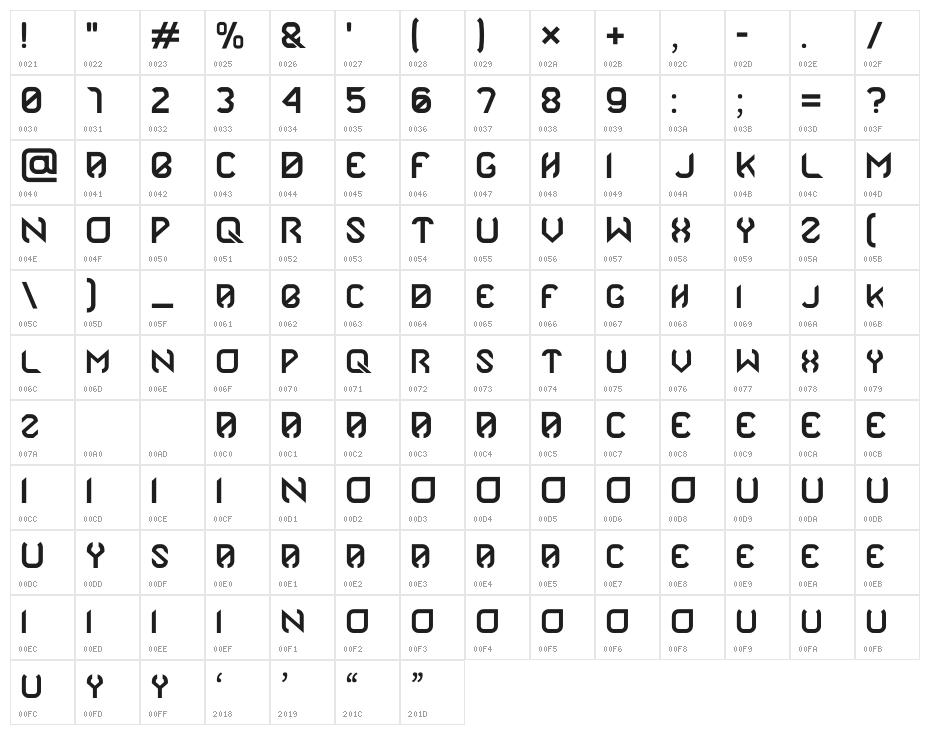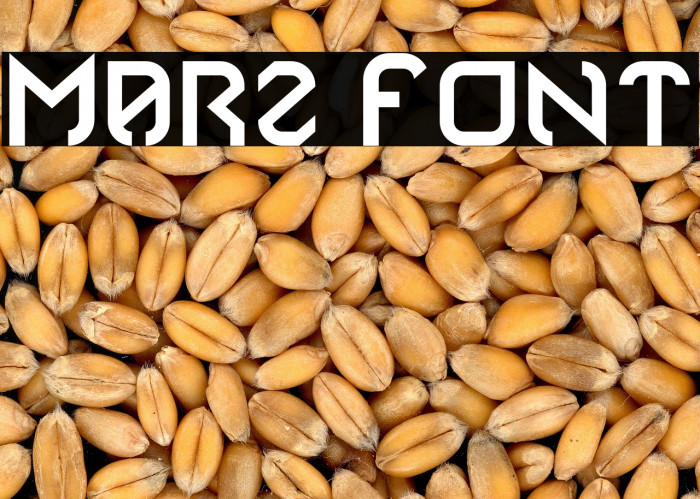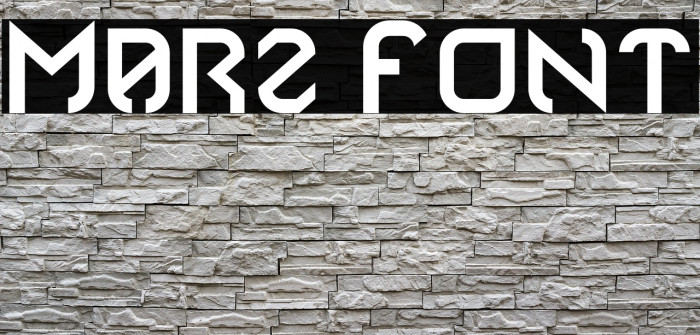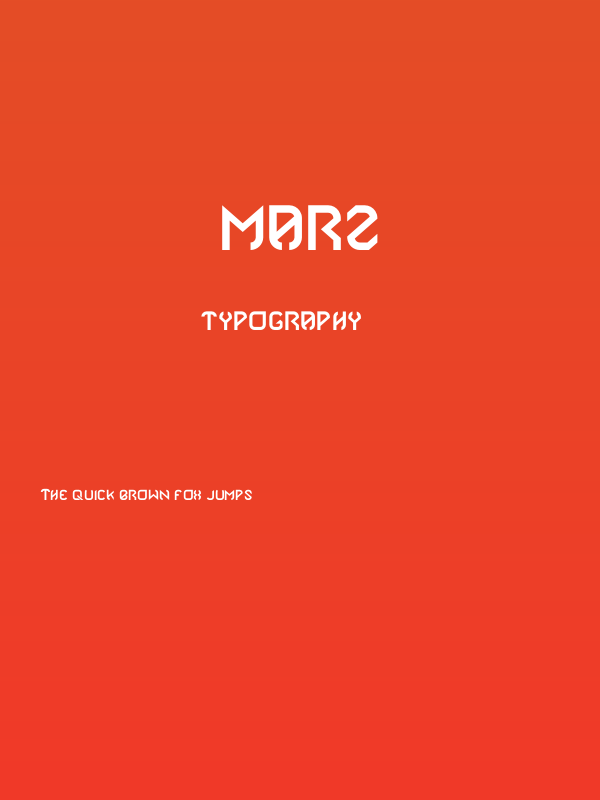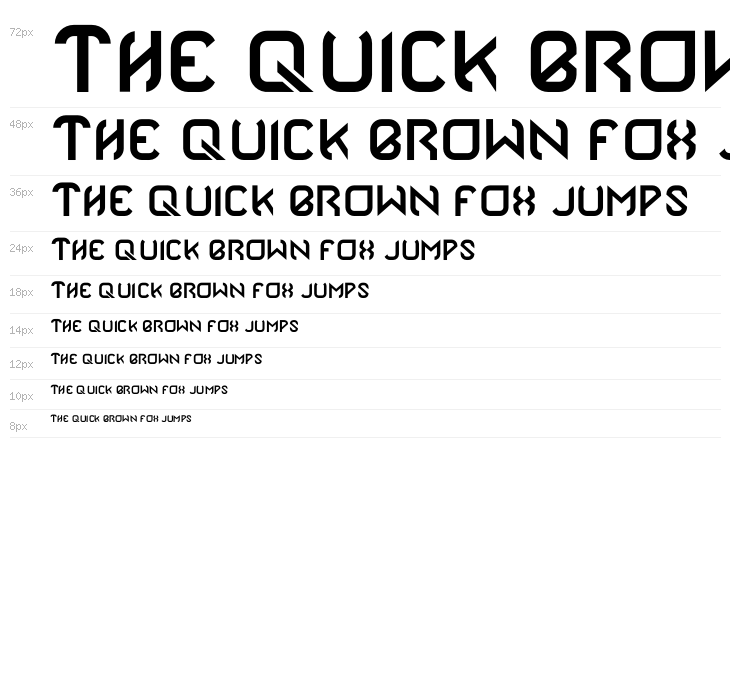
Marz Font
Marz Description
This font features a futuristic and geometric design with sharp angles and clean lines. The characters are bold and have a unique cut-out style that gives them a modern and edgy appearance. The uppercase letters are particularly striking, with a consistent angular theme that runs throughout the alphabet. The numbers and special characters maintain this aesthetic, ensuring a cohesive look across all glyphs. The font's distinct style makes it ideal for projects that require a contemporary and innovative feel.